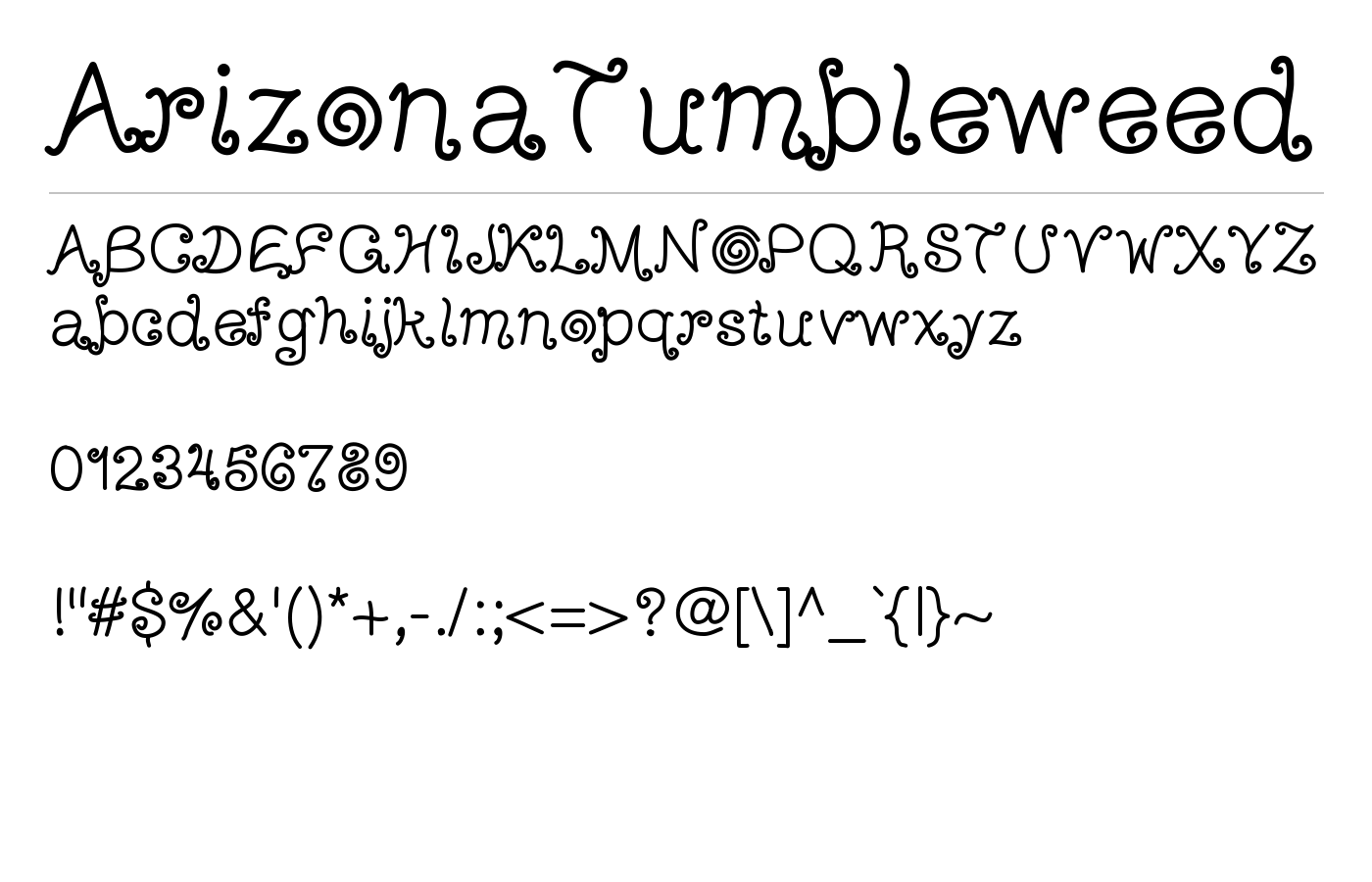
ArizonaTumbleweed is a whimsical serif font characterized by playful, curly strokes and decorative swirls that give it a hand-drawn, storybook feel. Its light weight, moderate x-height, and quirky letterforms make it ideal for creative, fun projects like children's books, handmade branding, or informal invitations, adding a touch of charm and personality. This font’s unique style works best in headlines or display settings where it can shine without affecting readability in longer texts.
ArizonaTumbleweed Font
About ArizonaTumbleweed Font